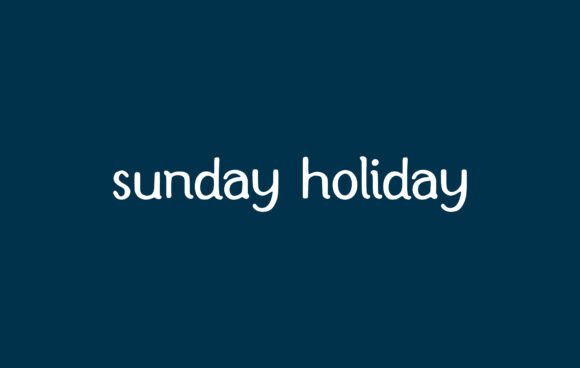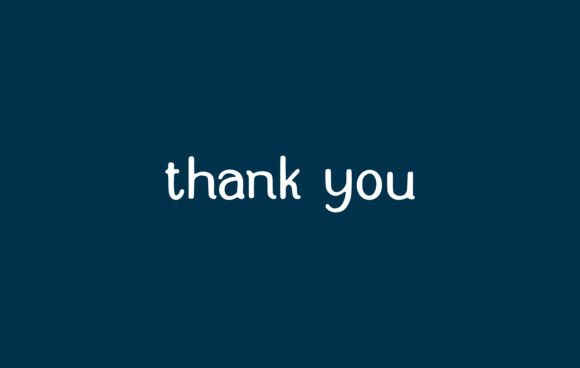
Introduction to Neches Font
Have you ever been stuck on a creative project, desperately searching for the perfect font to bring your ideas to life? I know I have. As designers, we’re constantly on the lookout for that elusive combination of style, legibility, and character that elevates our work from good to great. And that’s where the Neches Font comes in – a stunning, authentic handwritten font that adds a touch of romance to any design.
Whether you’re crafting a magazine headline, a social media post, or a wedding invitation, the Neches Font is the perfect design resource to take your work to the next level. With its high-quality, transparent background and free download option, this font is a game-changer for designers of all levels.
Key Features of Neches Font
- Features a unique and elegant design, perfect for adding a touch of sophistication to any project
Honest Review: Neches Font
I recently stumbled upon the Neches Font and I’m excited to share my thoughts on this design resource. As a designer, I’m always on the lookout for high-quality fonts to elevate my creative projects.
- ✨ The font features a modern and elegant design, perfect for a wide range of creative projects.
- ✨ The transparent background makes it easy to use in various design contexts.
- ⚠️ The font may not be suitable for projects that require a bold or distressed look.
- ⚠️ The font family is relatively small, which may limit its versatility in certain design applications.
Overall, I’m impressed with the Neches Font and would recommend it to designers looking for a high-quality, modern font. While it may have some limitations, its unique design and transparent background make it a valuable addition to any design resource collection.
Tips for Getting the Most Out of Neches Font
For best results, use the Neches Font on a transparent background. This will allow the font to stand out and add a touch of elegance to your design project.
The Neches Font is ideal for use in creative projects, such as branding, marketing materials, and digital products. Its high-quality design makes it a popular choice among designers and artists.
Alternatives to Neches Font
Noto Sans is a high-quality sans-serif font perfect for designers working on creative projects that require a clean and modern aesthetic. It’s available for free download and comes in a wide range of languages, making it a versatile design resource. When to use: for projects that require a professional and approachable look.
Comparison to Neches Font: Noto Sans has a more geometric and modern feel, whereas Neches Font has a more handwritten and cursive appearance. Noto Sans is ideal for projects that require a high level of readability and legibility.
Montserrat is a popular sans-serif font designed for digital use. It’s known for its sleek and modern design, making it a great choice for designers working on creative projects that require a high level of sophistication. When to use: for projects that require a modern and urban feel.
Comparison to Neches Font: Montserrat has a more geometric and modern feel, whereas Neches Font has a more handwritten and cursive appearance. Montserrat is ideal for projects that require a high level of readability and legibility, especially in digital formats.
Great Vibes is a beautiful script font perfect for designers working on creative projects that require a touch of elegance and sophistication. It’s available for free download and comes with a transparent background, making it a great design resource for projects that require a high level of customization. When to use: for projects that require a luxurious and high-end feel.
Does the Neches Font have a transparent background?
No, the Neches Font does not have a transparent background. It is a solid font with a clean and modern design. However, you can use the font in conjunction with a transparent background in your design projects, such as in graphic design or digital art. Simply place the font on top of a transparent background, and you’ll achieve the desired effect.